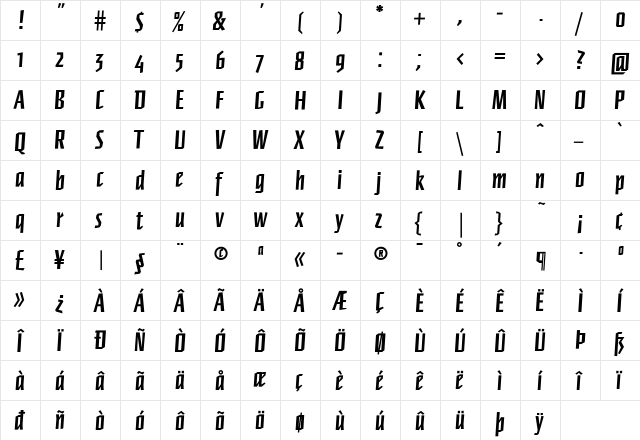
FFNewberlin-Bold Bold Font Preview
FFNewberlin-Bold Bold
Design Context for FFNewberlin-Bold Typeface
FFNewberlin-Bold is a composed and adaptable typeface that performs quietly and consistently across a wide range of design contexts. Its bold stroke weight gives it real presence on the page.